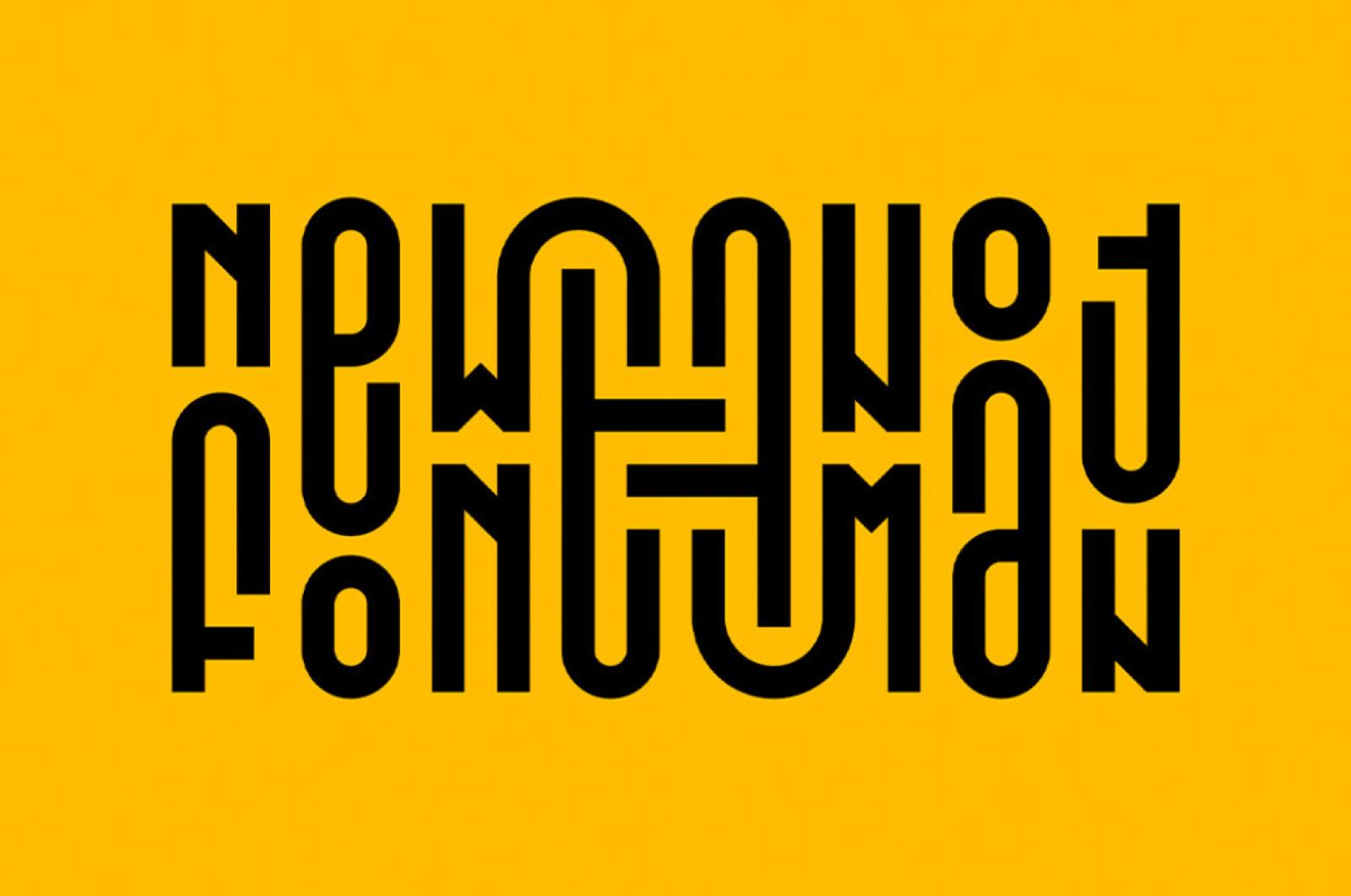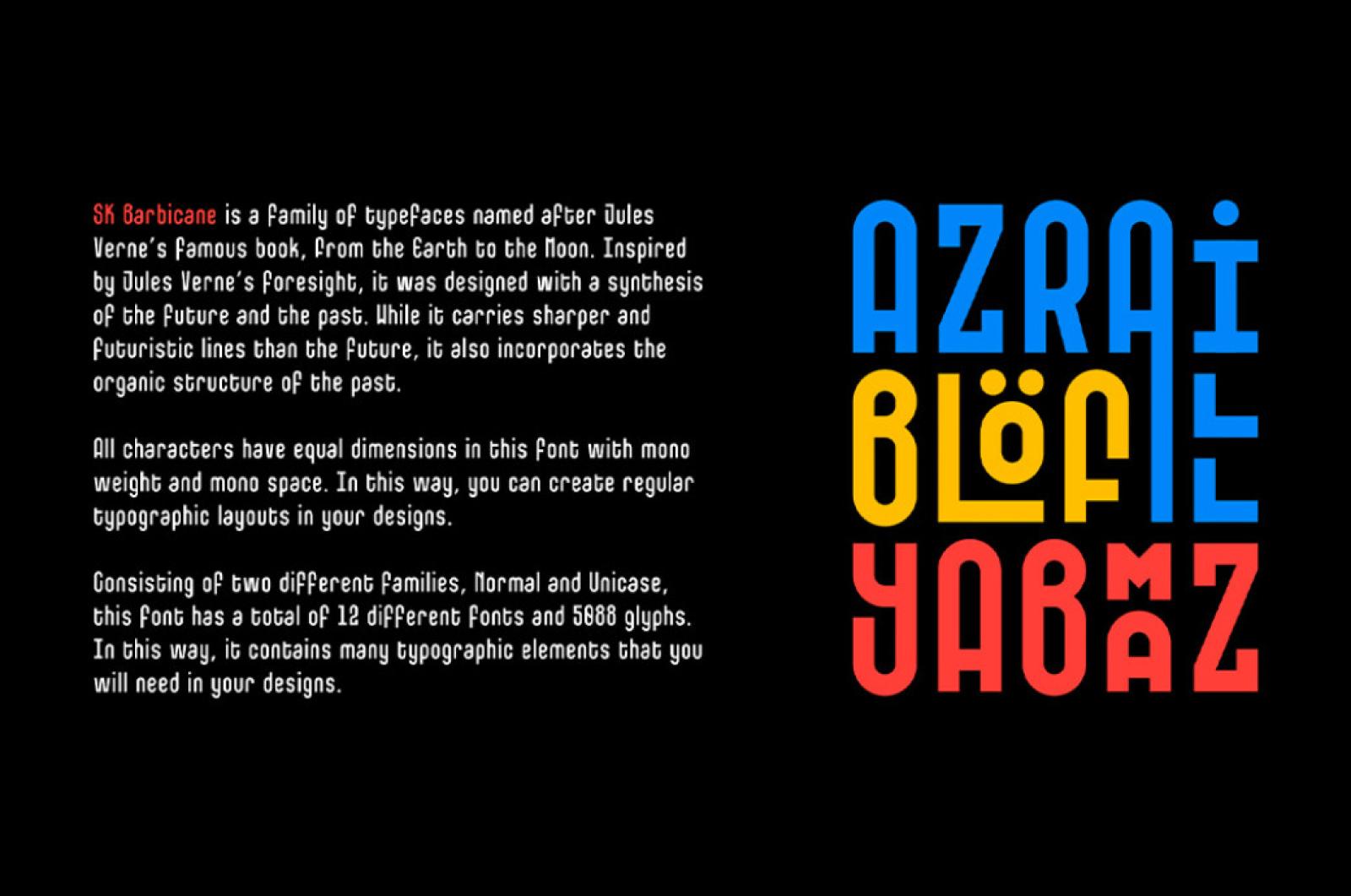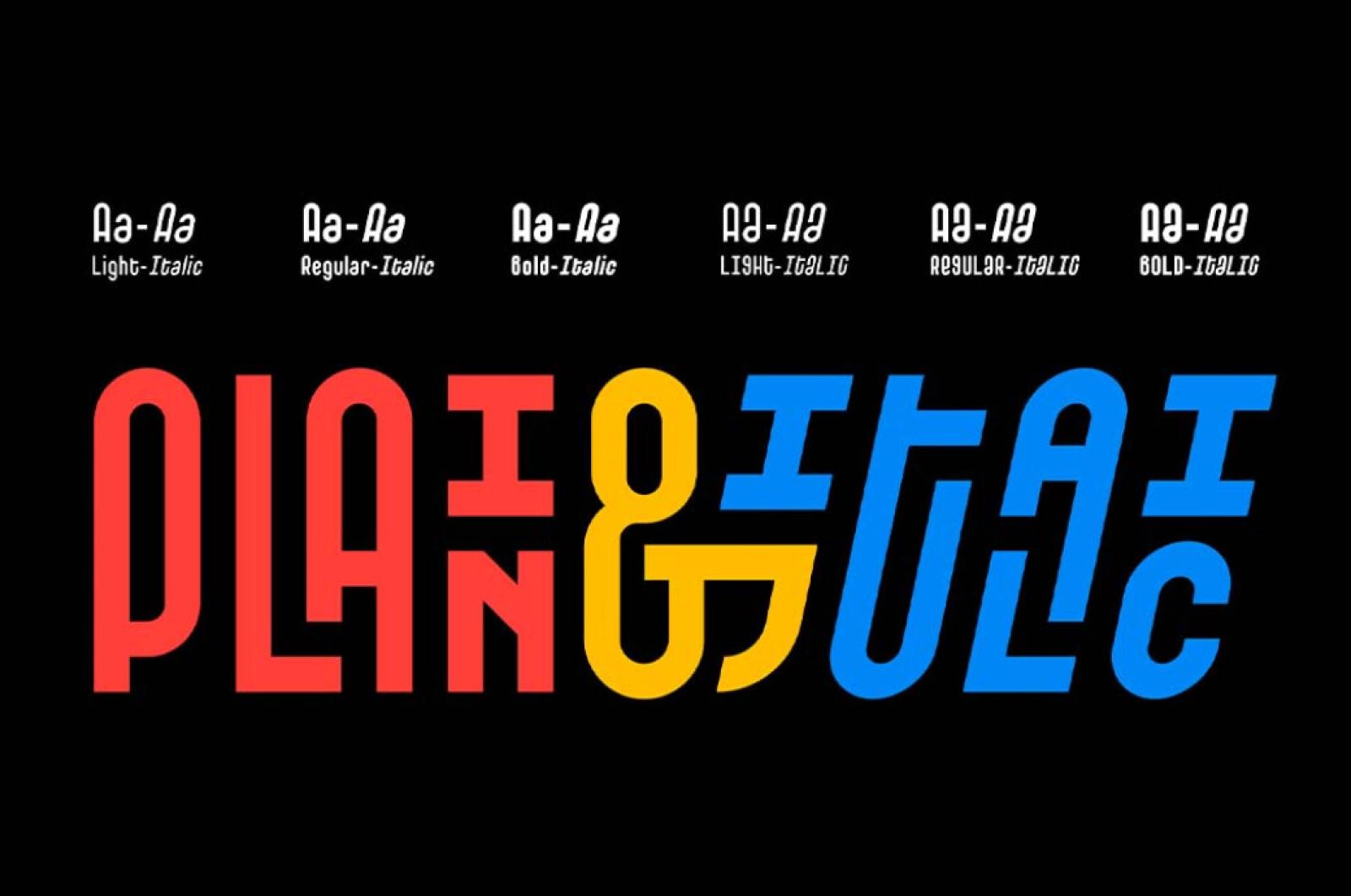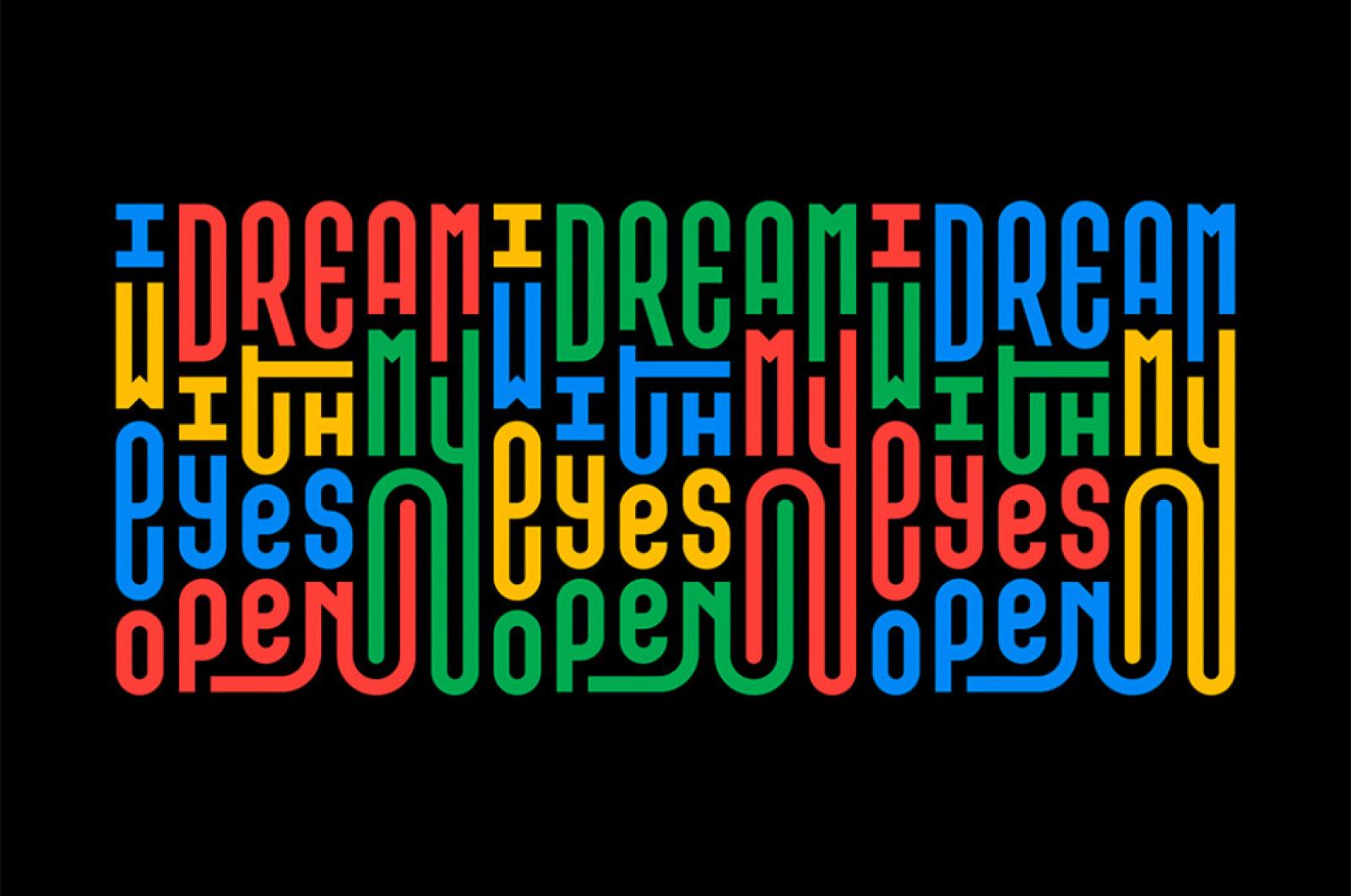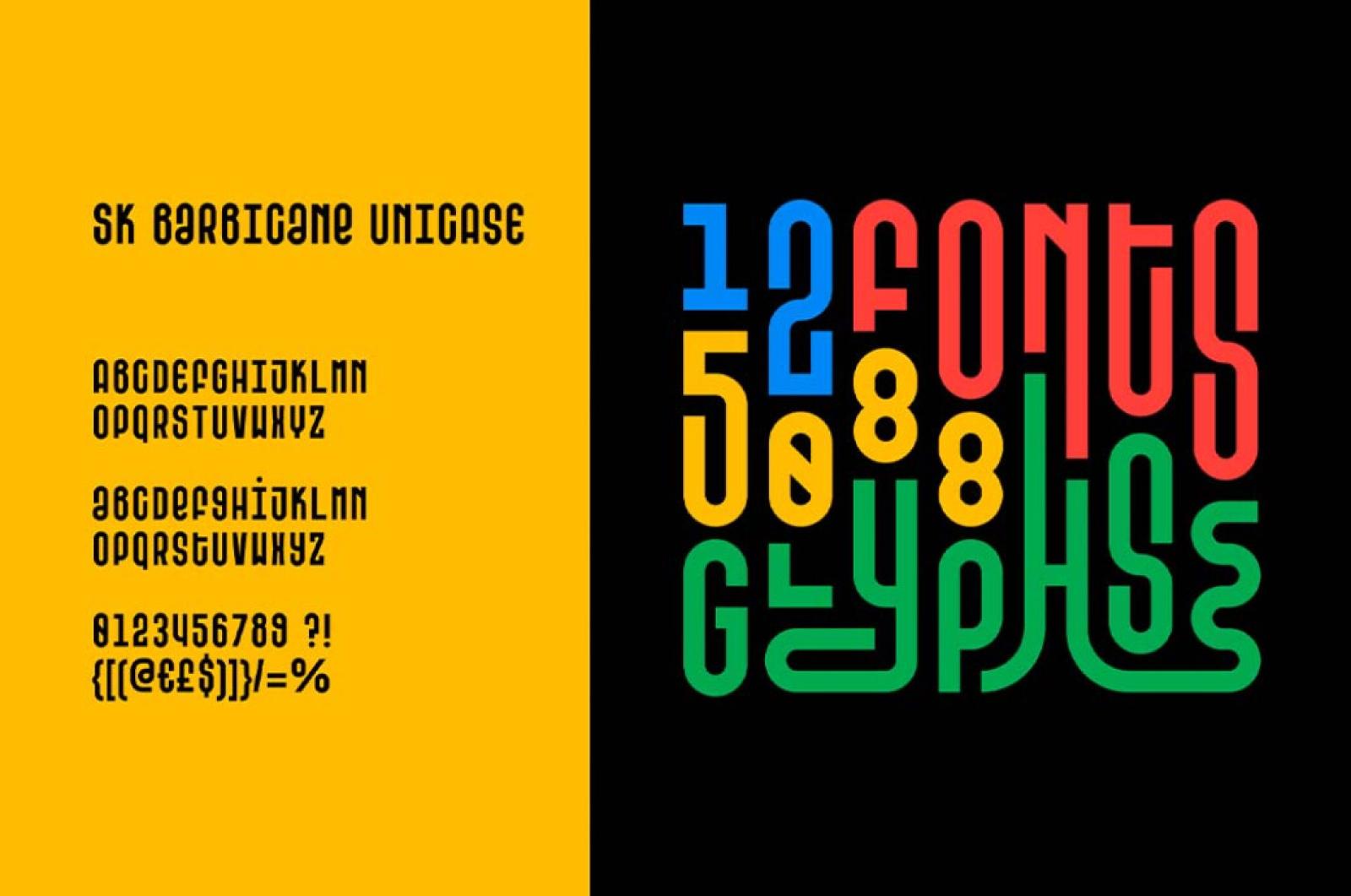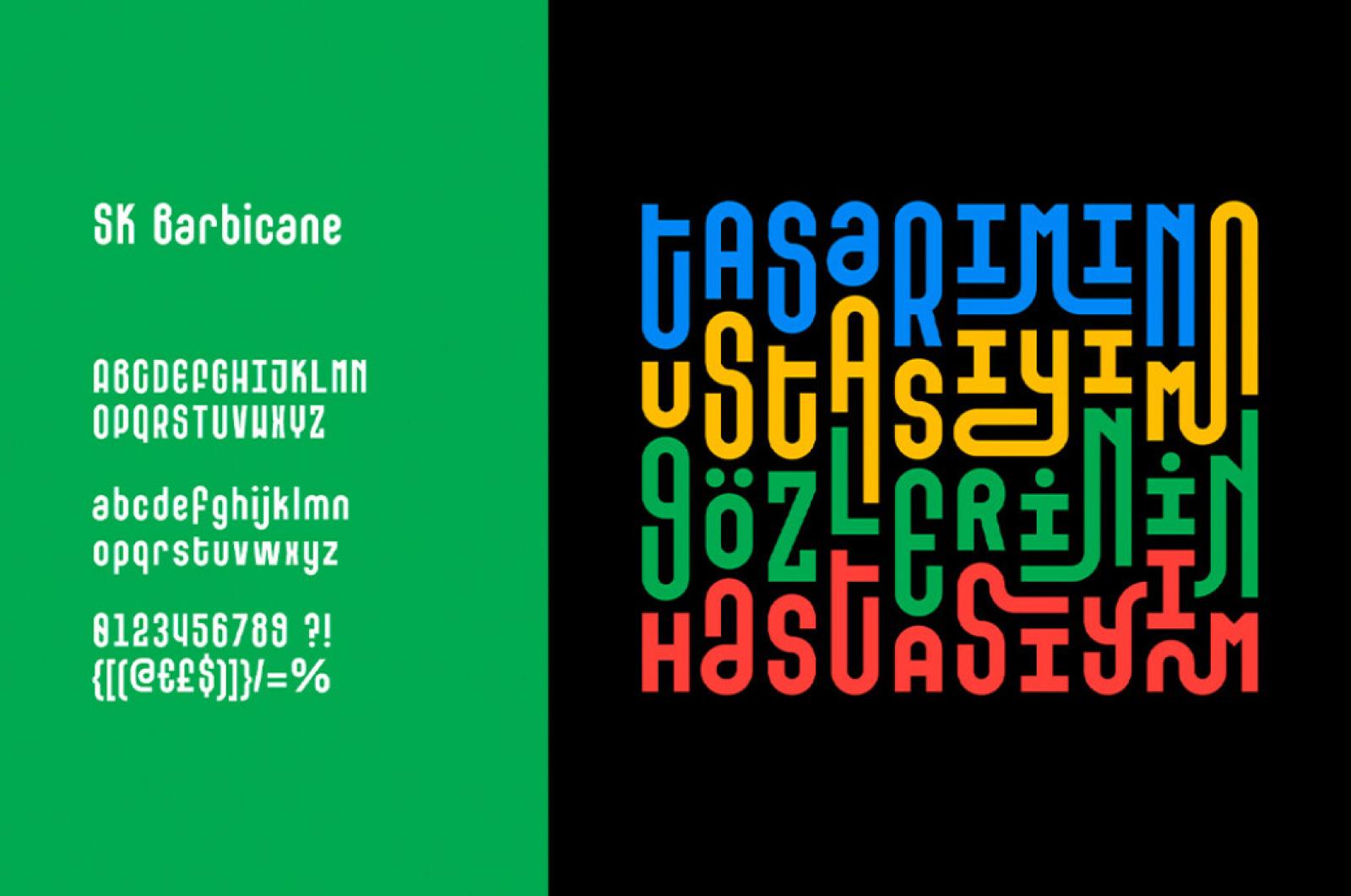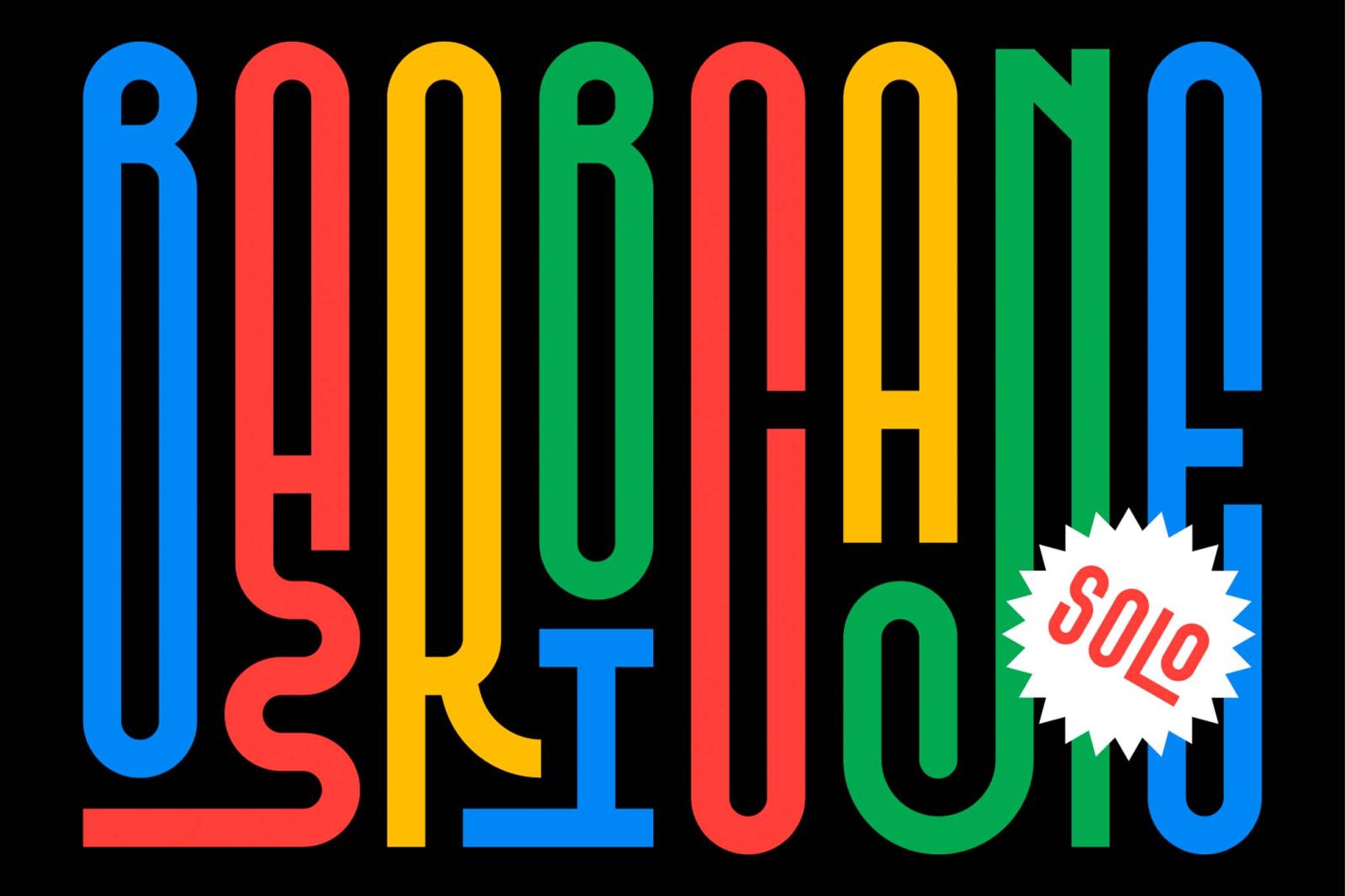
SK Barbicane Solo Font
SK Barbicane is named after Jules Verne's From the Earth to the Moon. Inspired by Jules Verne's foresight, it was designed with a synthesis of the future and the past.
All characters in this family have equal dimensions with mono weight and mono space. In this way, you can create regular typographic layouts in your designs. SK Barbicane features two families, Regular and Unicase. Each covers a complete glyph set: uppercase and lowercase letters, international characters, symbols, punctuation, and numbers.